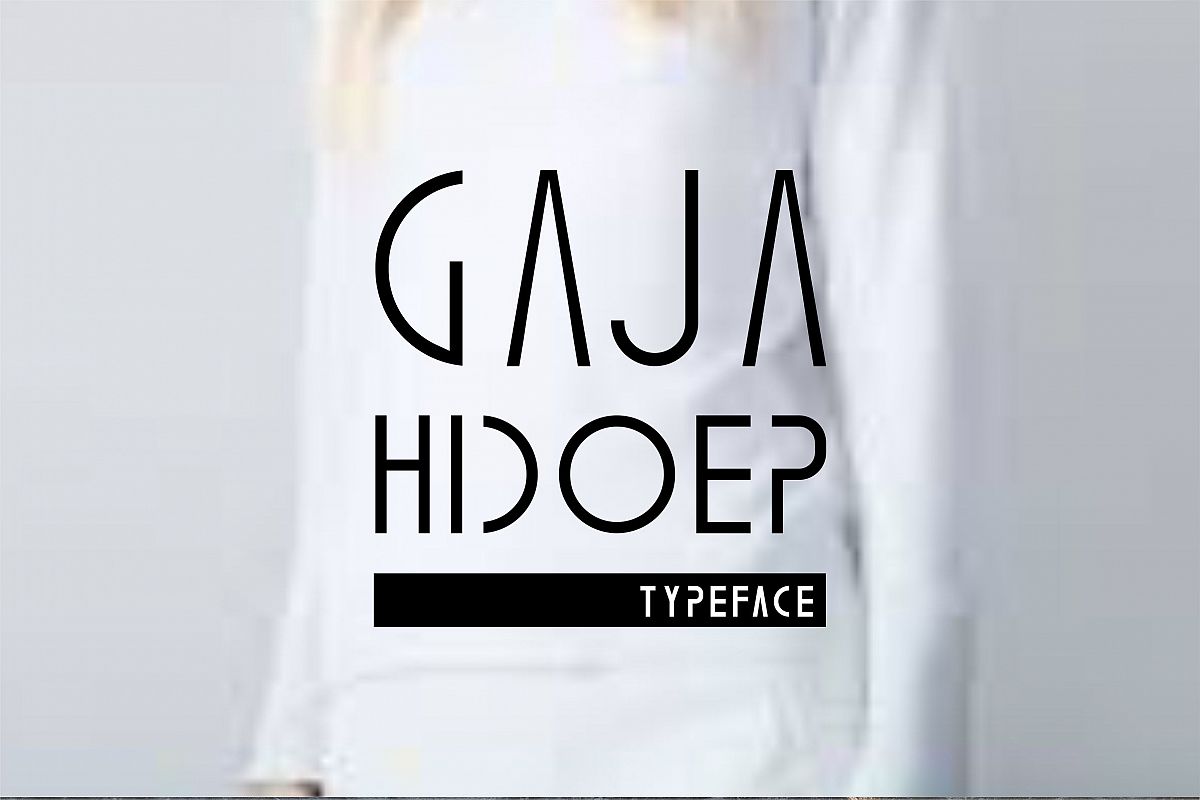
Gaja Hidoep (2 Font)
Gaja Hidoep a minimalis typeface and awesome character with 2 different style, Gaja hidoep light, Gaja hidoep regular. Gaja hidoep it’s perfect for namecard, poster, logo, magazine, cover, banner, tshirt and headers, or even large-scale artwork.Files Included:Gaja hidoep light (ttf & otf) Gaja hidoep regular (ttf & otf)